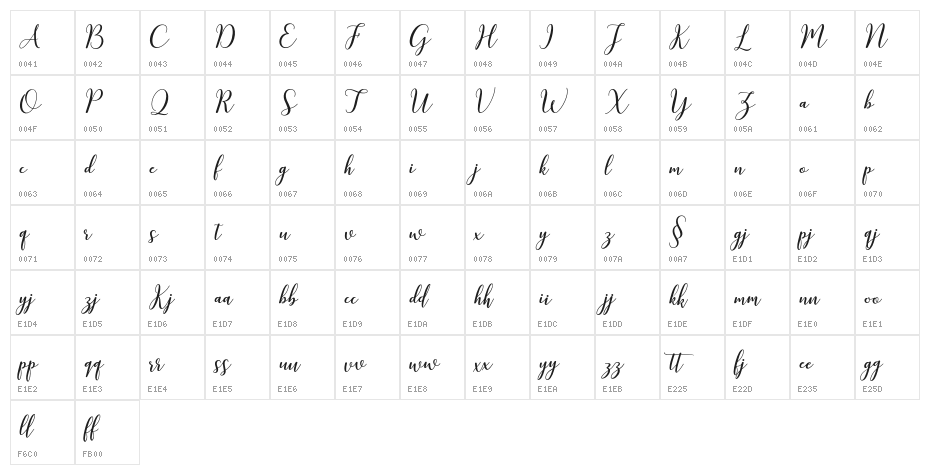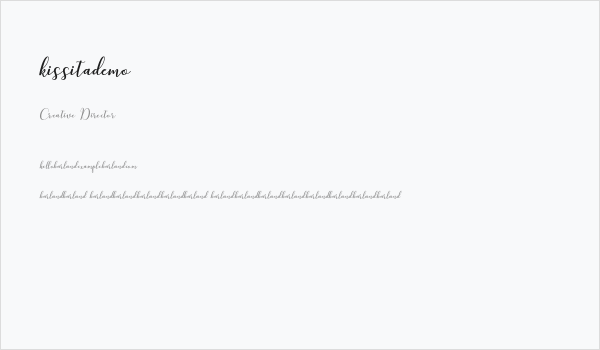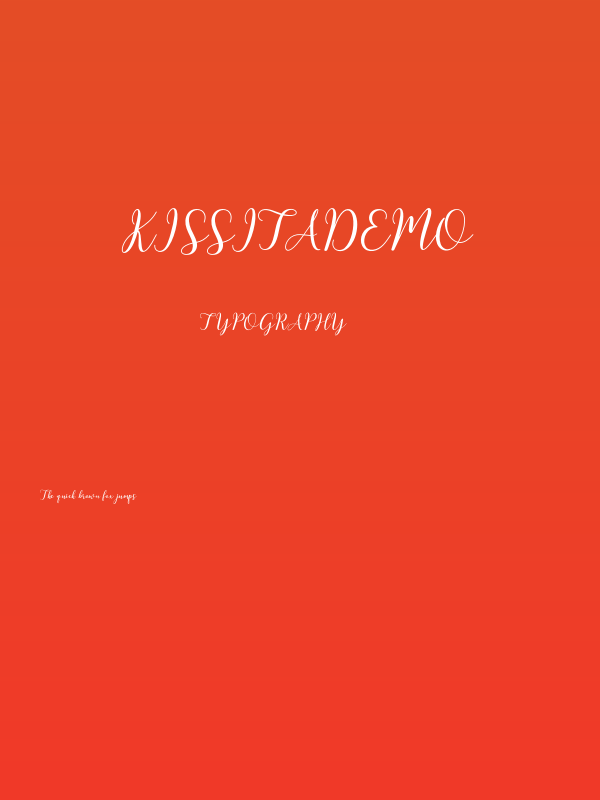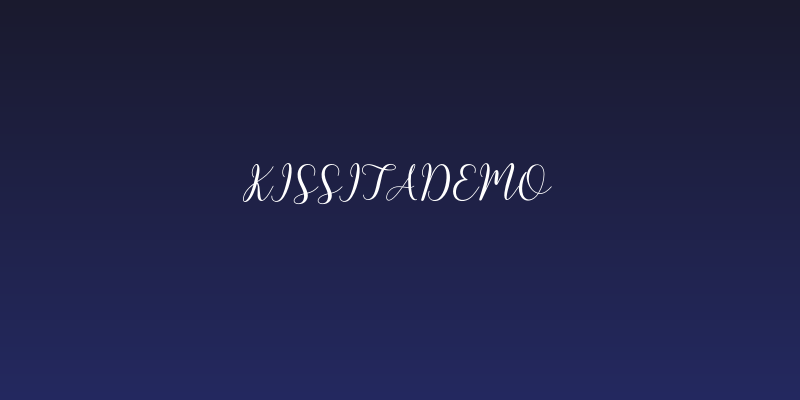
kissitademo Font
kissitademo Description
This font exudes elegance and sophistication with its flowing script style. The characters are connected in a fluid manner, reminiscent of traditional calligraphy. The uppercase letters are tall and graceful, while the lowercase letters maintain a consistent flow, enhancing readability. The strokes are smooth and exhibit a medium contrast, adding to the font's refined appearance. This font is ideal for projects that require a touch of elegance and class, such as wedding invitations, formal event branding, or upscale product packaging. Its decorative nature makes it stand out, yet it remains legible and versatile for various applications.
| Overall Style | Elegant, Decorative |
| Proposed Projects | Wedding invitations, formal event branding, upscale product packaging, elegant logos. |